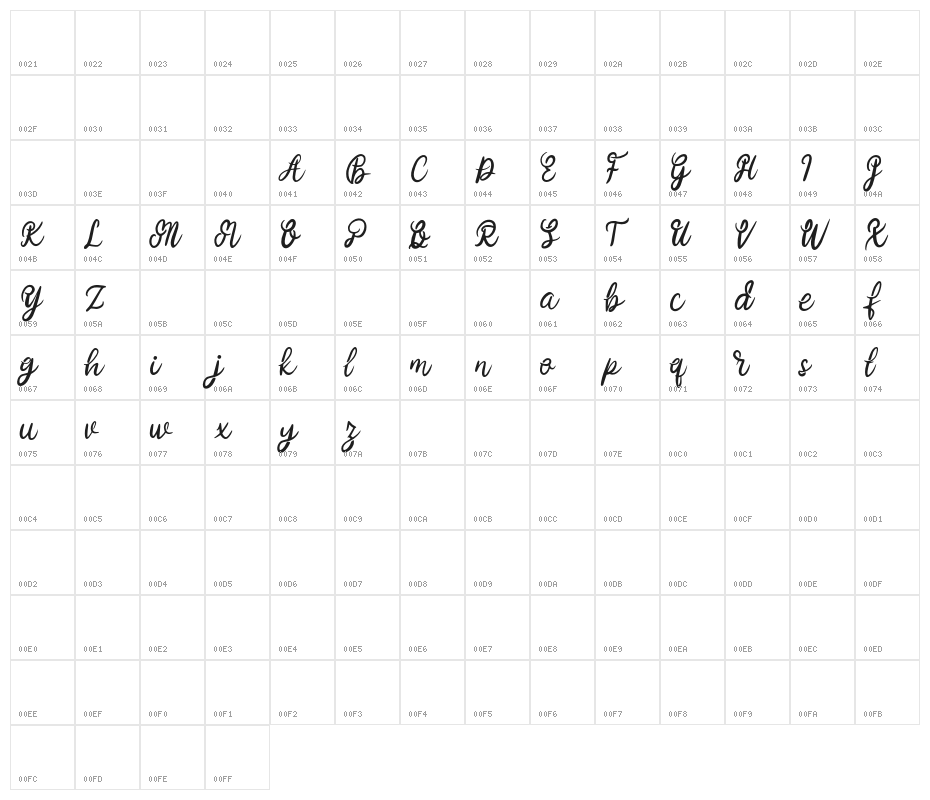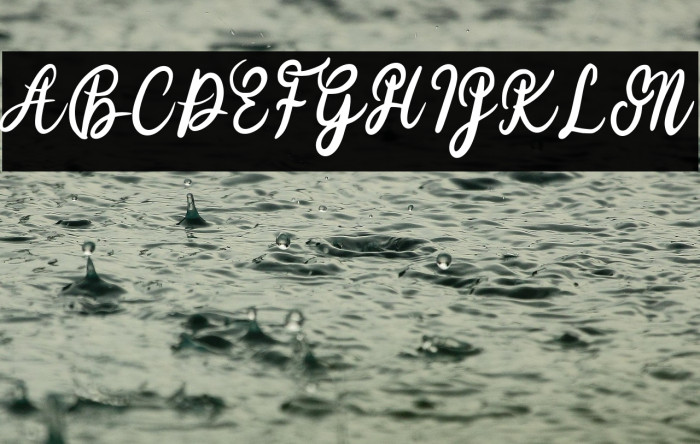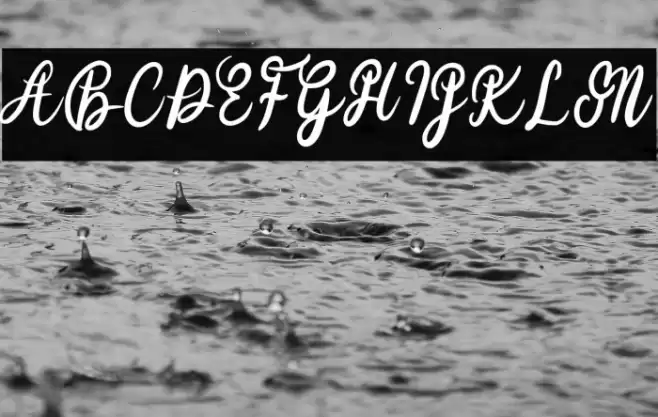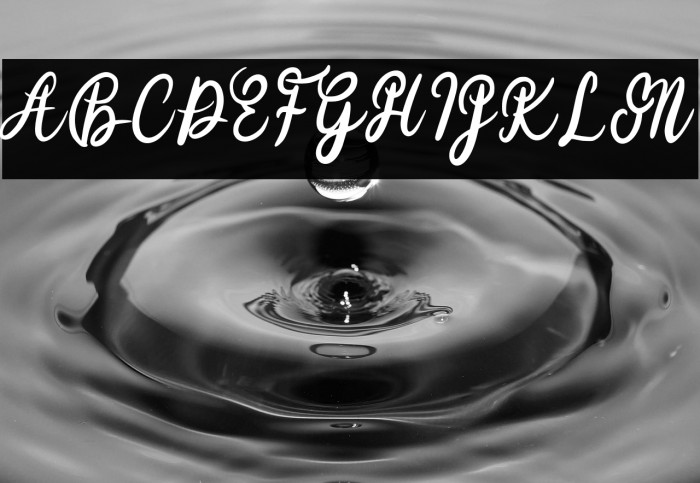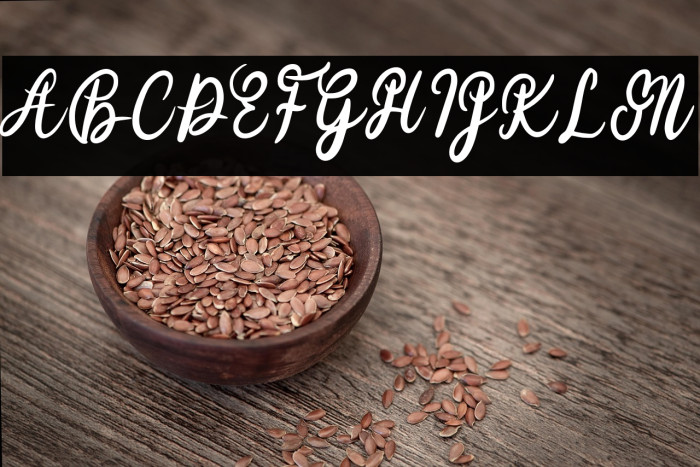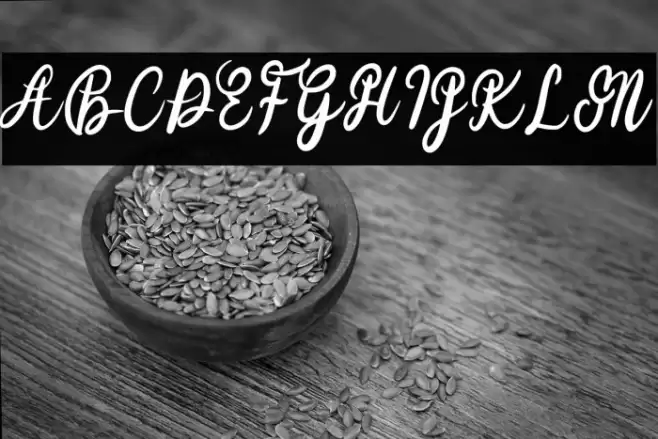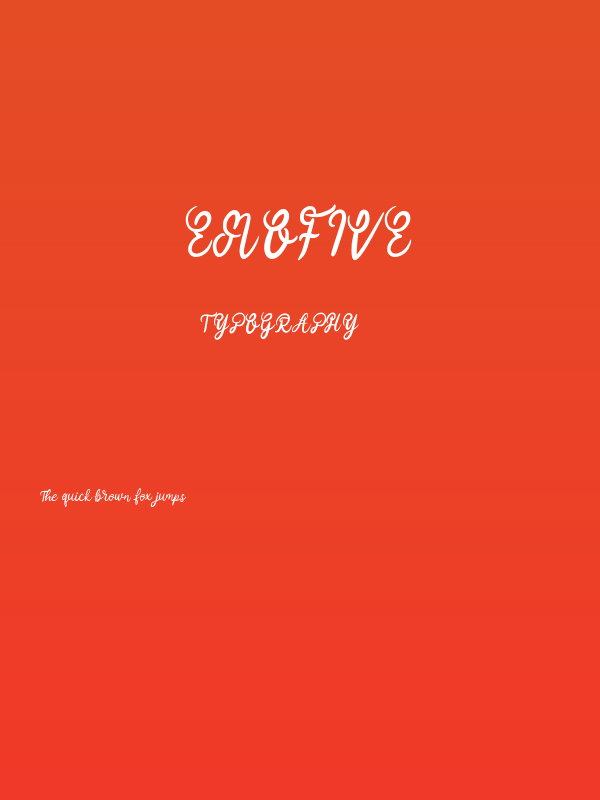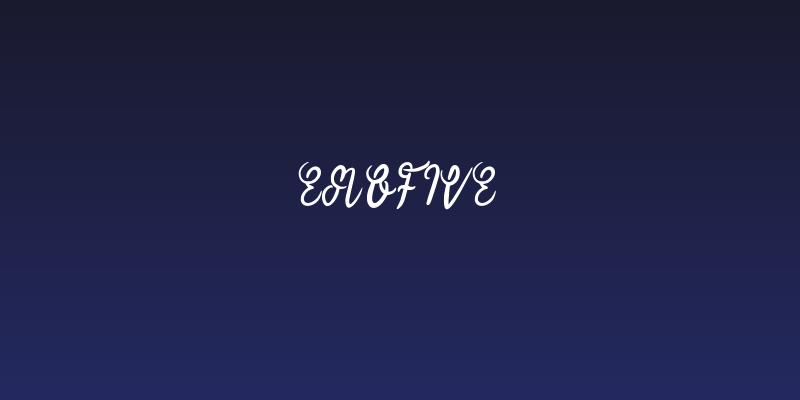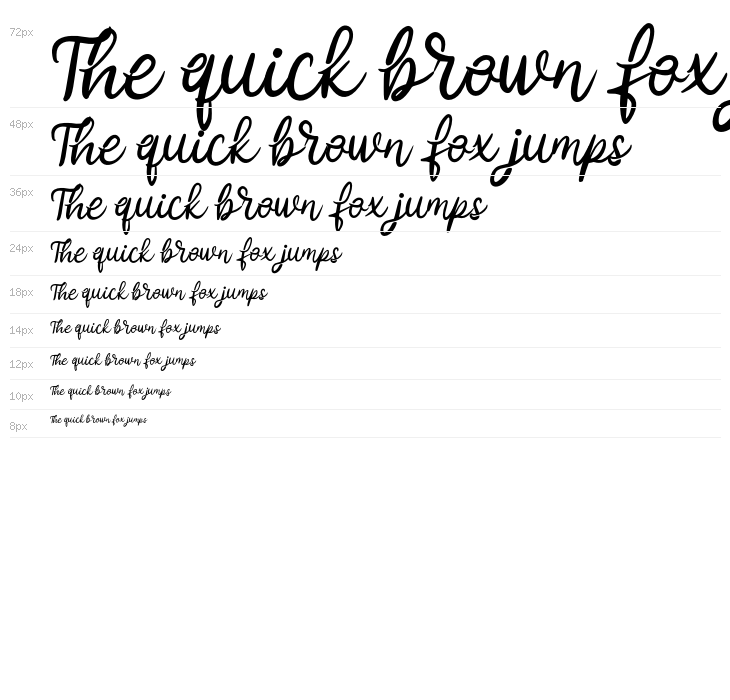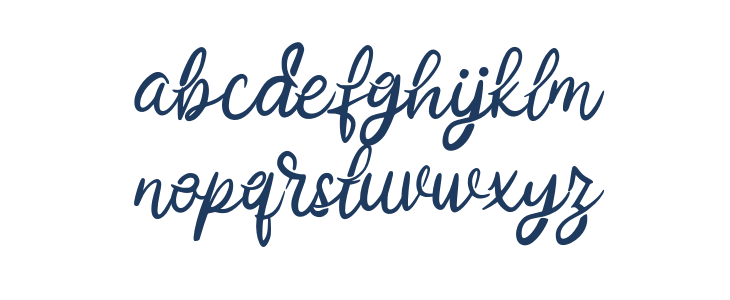
Enofive Font
Enofive Description
This font features an elegant and flowing script style, characterized by its smooth, connected letters that mimic the fluidity of cursive handwriting. The uppercase letters are distinct with decorative flourishes, while the lowercase letters maintain a consistent flow, enhancing readability. The font exhibits a balanced contrast in stroke thickness, adding to its sophisticated appearance. It is well-suited for projects that require a touch of elegance and personal flair, such as invitations, greeting cards, and branding materials. The overall style is both classic and decorative, making it versatile for various design needs.
Overall StyleClassic, Decorative
Use CaseInvitations, Greeting cards, Logos
Proposed ProjectsIdeal for wedding invitations, greeting cards, logos, and branding materials.